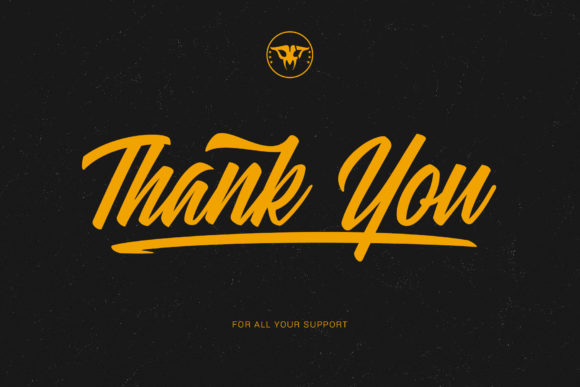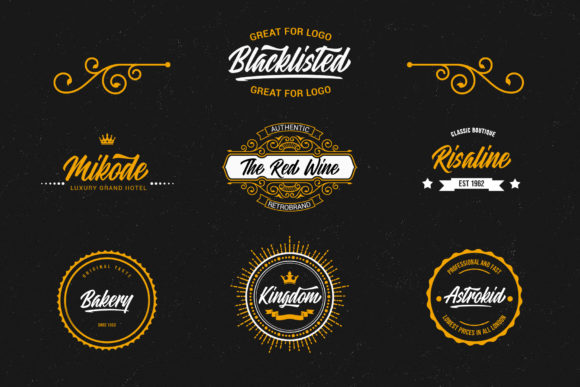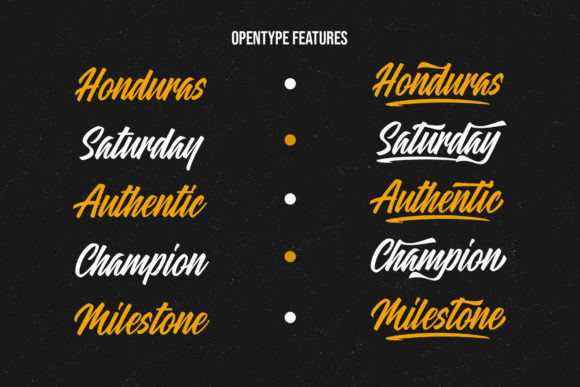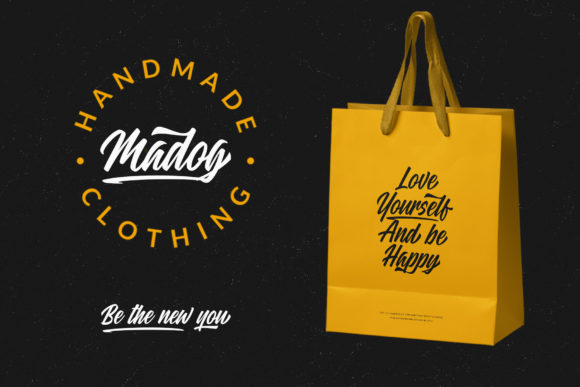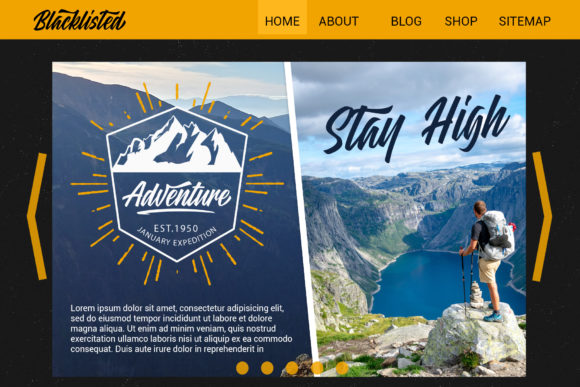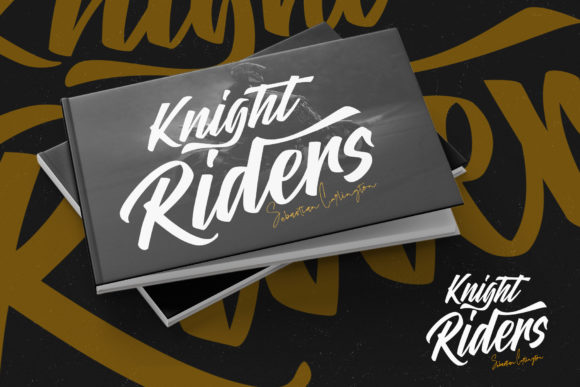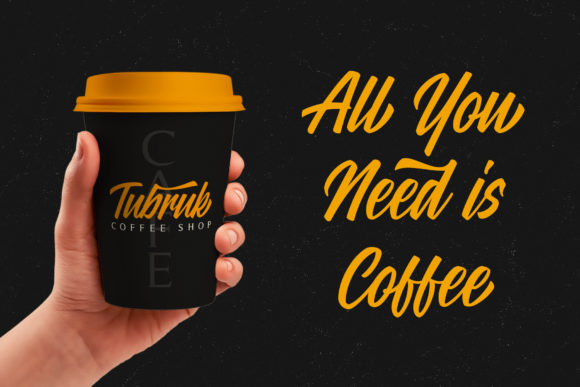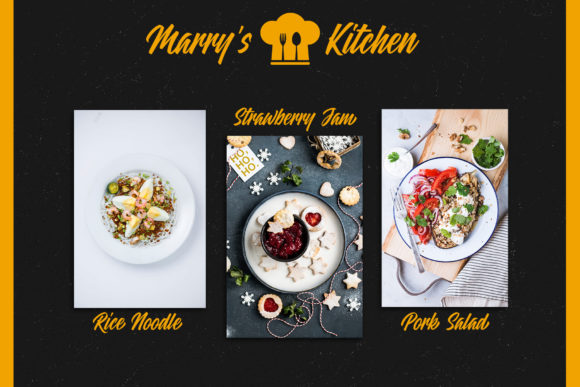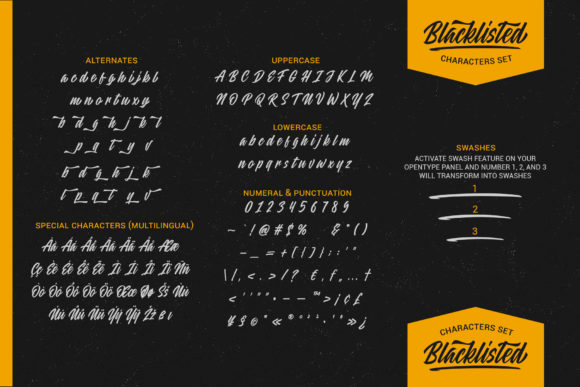
Blacklisted Font
About Blacklisted Font
Blacklisted is a vintage script font with clean brush strokes. It will elevate a wide range of design projects to the highest level, be it branding, headings, wedding designs, invitations, signatures, logos, labels, and much more!